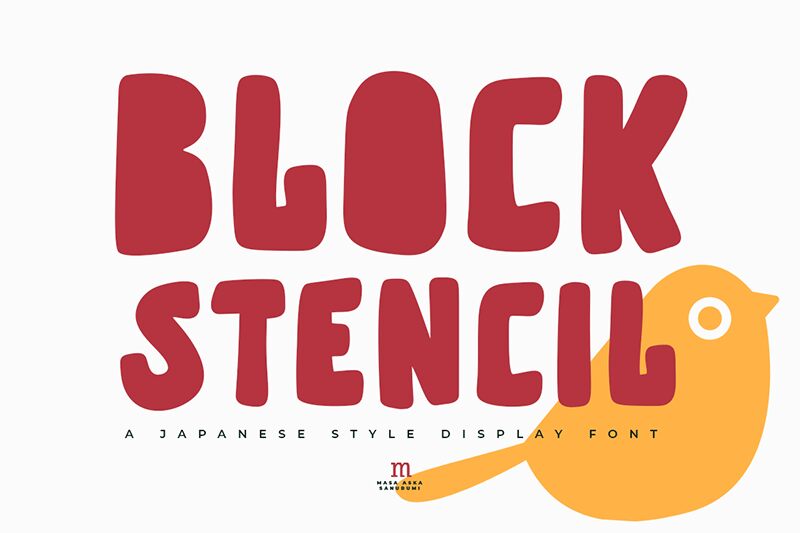
Block Stencil, designed by the innovative Masa Aska Sanurumi, captures the whimsy of cartoon aesthetics while maintaining a sleek semi-light weight and semi-condensed width. Its playful character makes it an exceptional choice for projects that require a touch of creativity and fun. Whether gracing the bold headlines of a trendy magazine or splashed across cheerful greeting cards, Block Stencil adds a refined yet lighthearted vibe to any design.
This display font is not only charming but also incredibly adaptable, making it an indispensable asset in your creative toolkit for crafting distinct and engaging visual narratives.